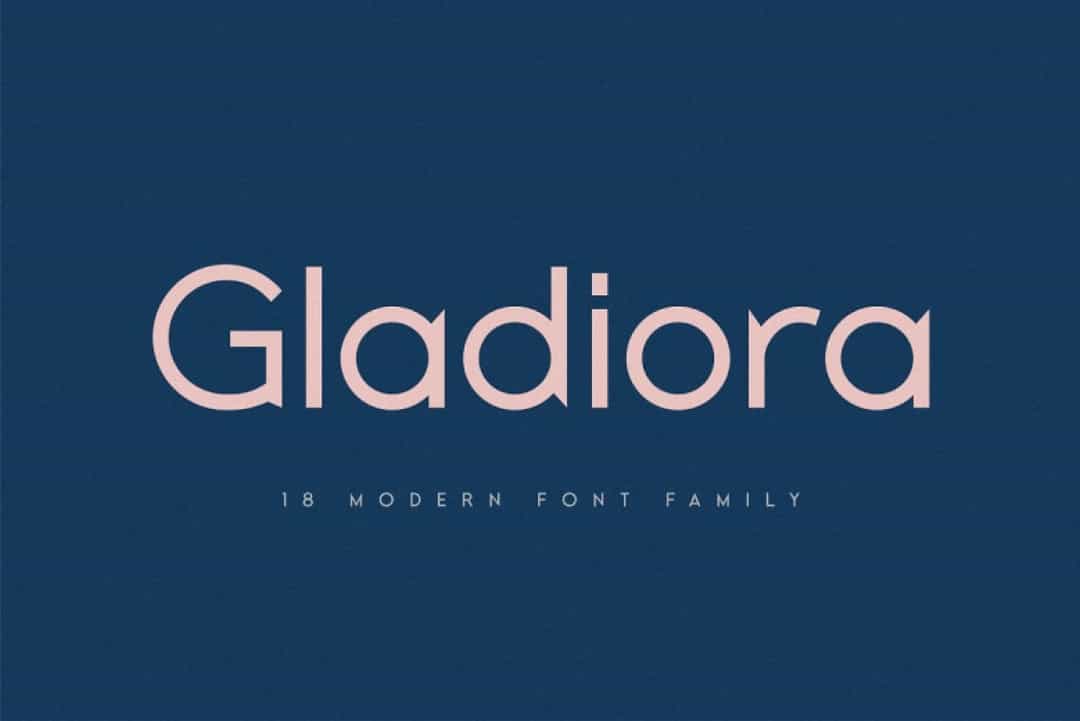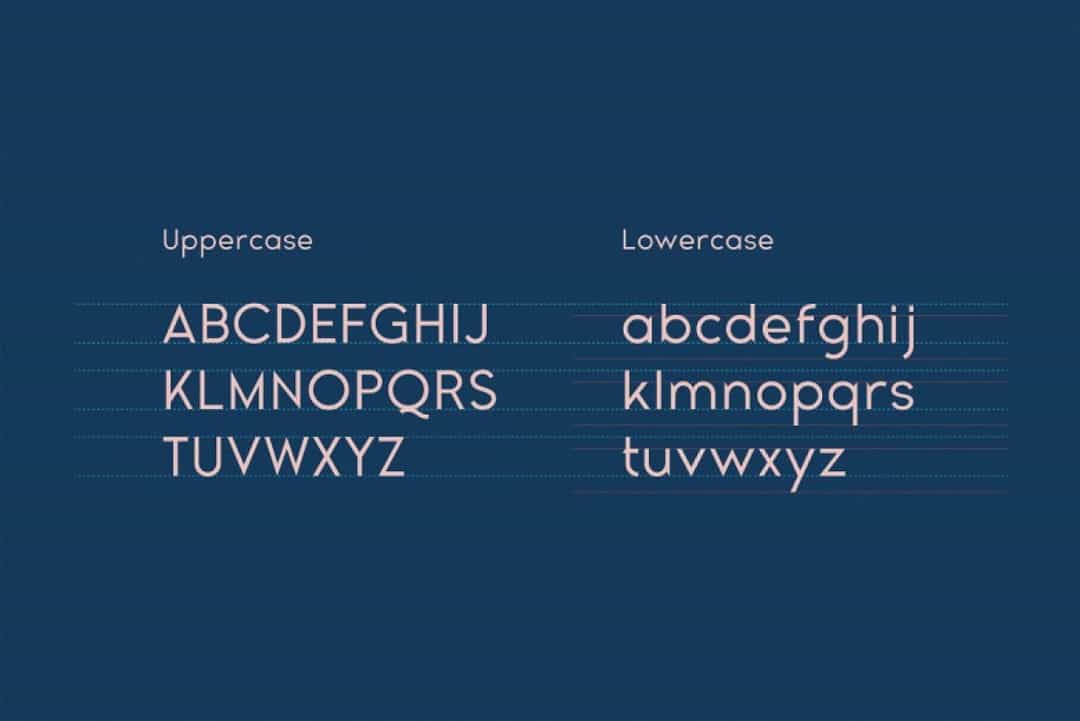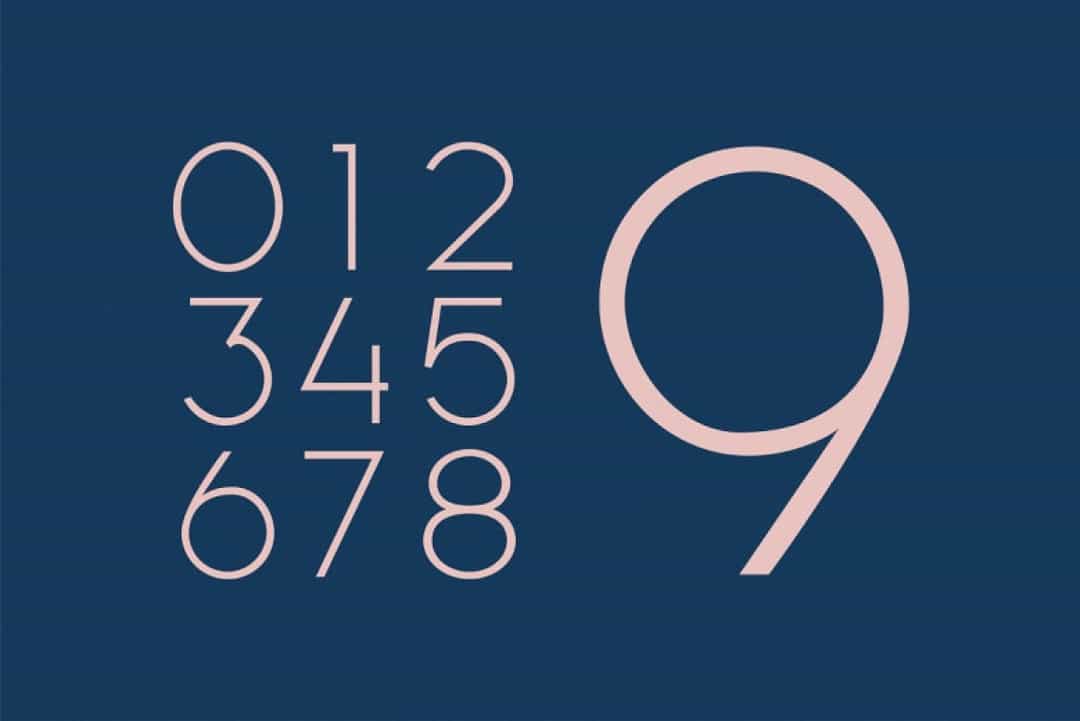
Gladiora is a sans serif font family with tapered accents in some of the letters giving it a modern and bold character, even being quite prominent in thin characters. This font aims to give an elegant impression and also looks so luxurious in short wording for a letter-based title and logo.